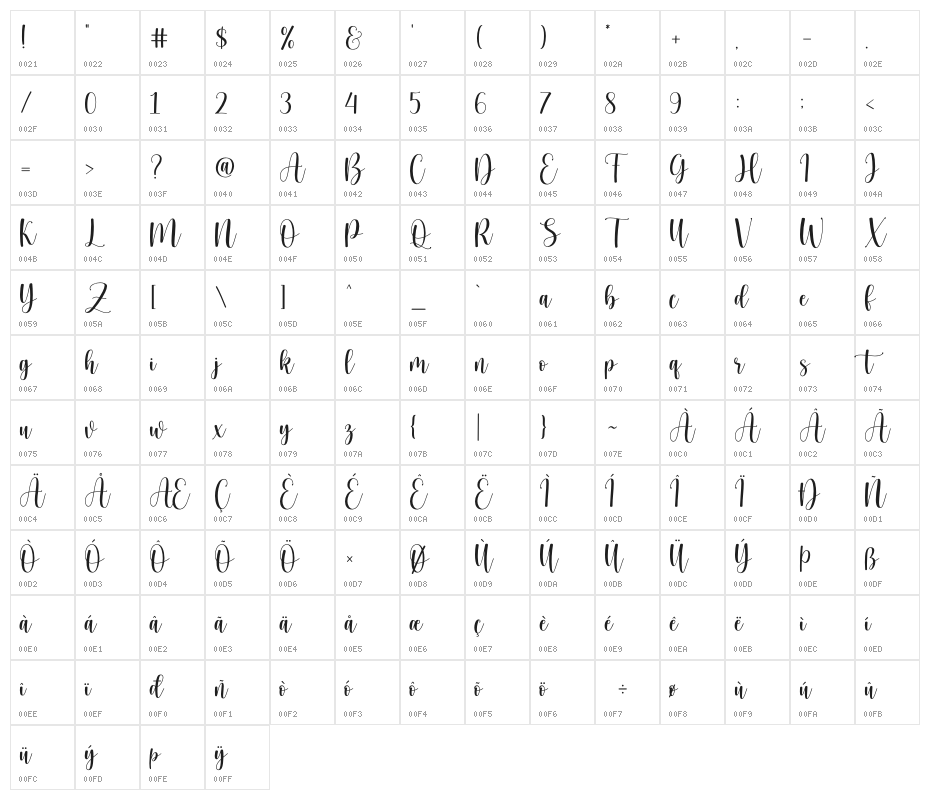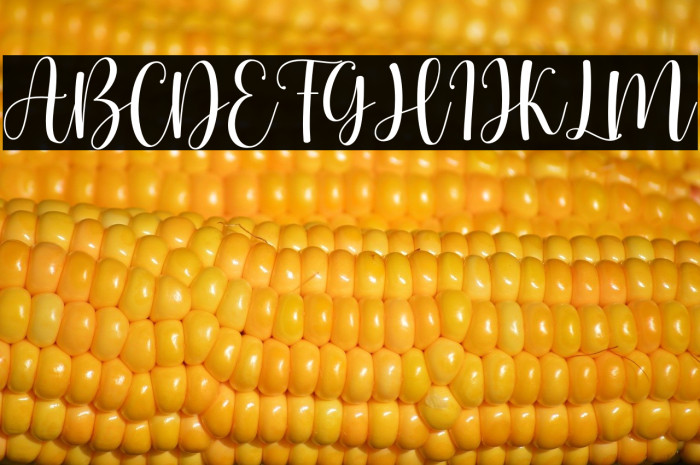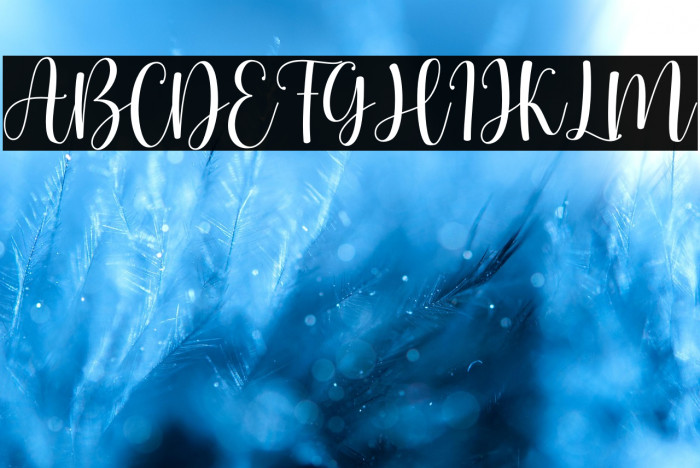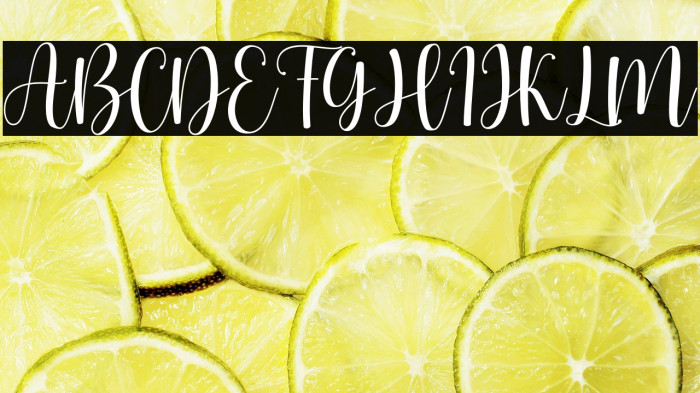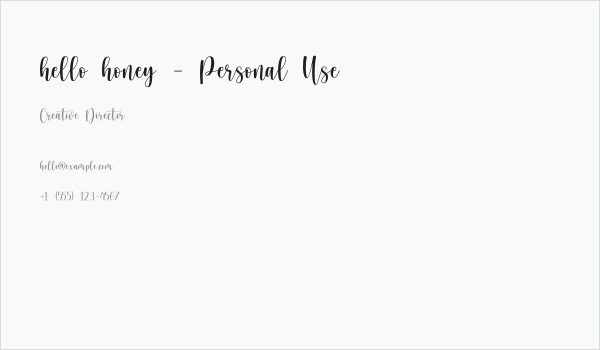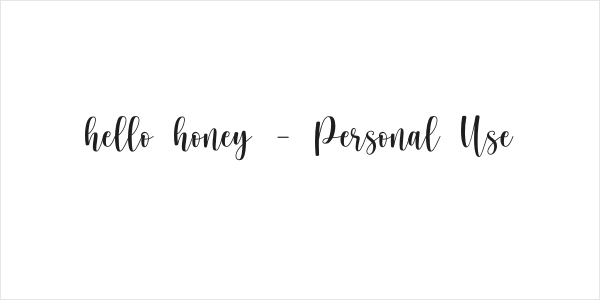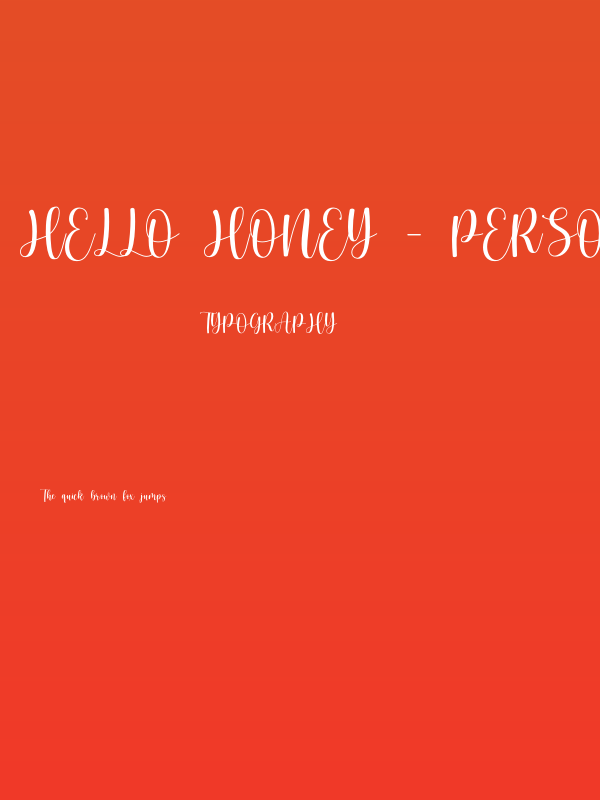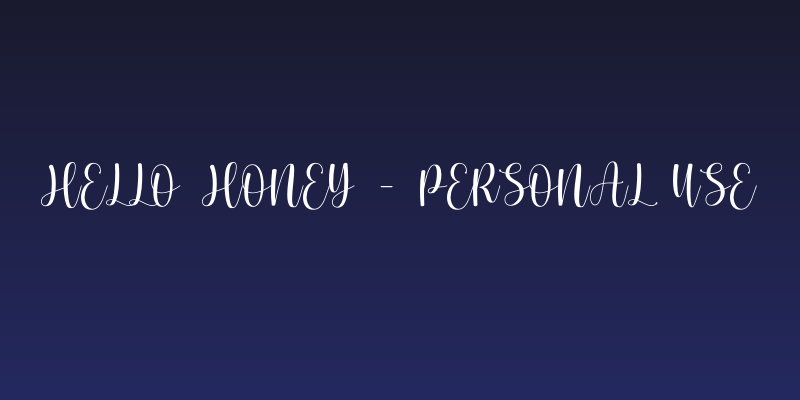
hello honey - Personal Use Font
hello honey - Personal Use Description
This font features an elegant and flowing script style, characterized by its smooth, cursive strokes and graceful curves. The uppercase letters are ornate, with sweeping lines that give a sense of movement and fluidity. The lowercase letters maintain a consistent style, offering a harmonious blend of loops and swirls that enhance its decorative appeal. Numbers and special characters are designed to match the overall aesthetic, ensuring a cohesive look across all text elements. This font exudes a sense of sophistication and charm, making it ideal for projects that require a touch of elegance.
| Use Case | Logos, Invitations, Greeting cards |
| Proposed Projects | Ideal for wedding invitations, greeting cards, branding, and elegant logos. |